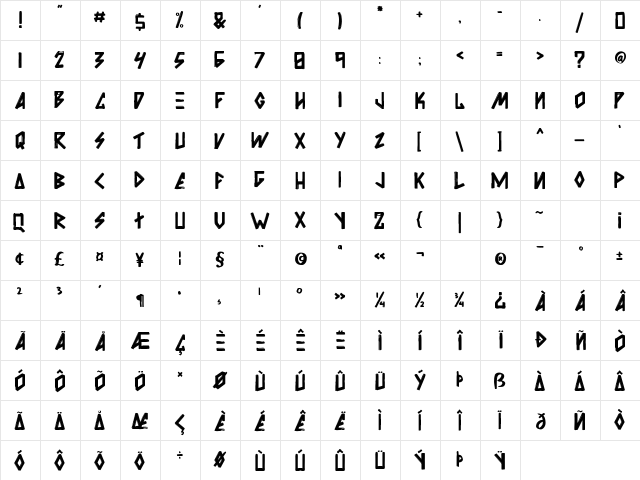
Awesome Brush Regular Font Preview
Awesome Brush Regular
Awesome Brush Regular Font Details
| Designer | Sigit Dwipa Raharjo |
Design Context for Awesome Brush Typeface
Awesome Brush flows with the natural rhythm of handwritten lettering, making it ideal for designs that call for warmth and personal expression.